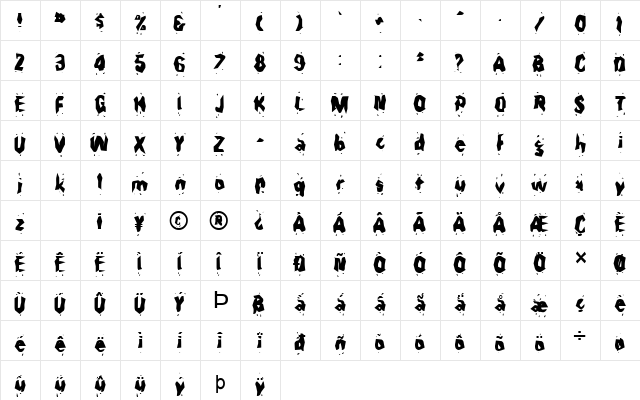
FZ WACKY 30 Normal Font Preview
FZ WACKY 30 Normal
FZ WACKY 30 Normal Font Details
Design Context for FZ WACKY 30 Typeface
FZ WACKY 30 is a composed and adaptable typeface that performs quietly and consistently across a wide range of design contexts.